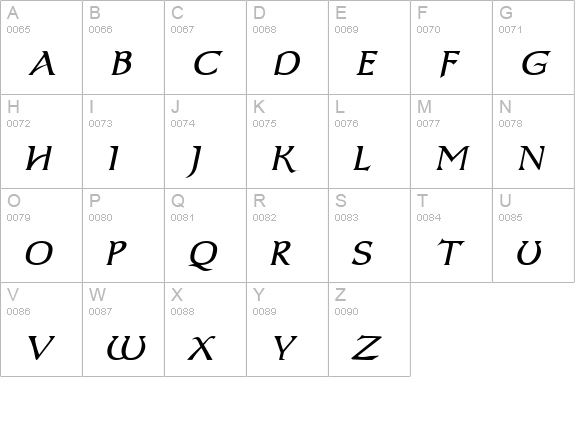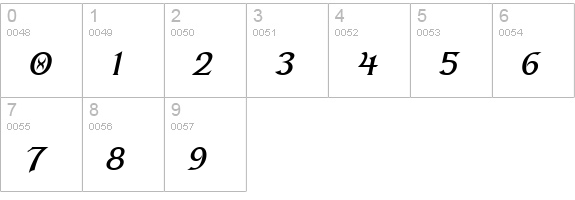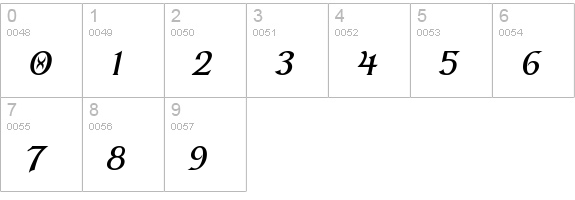
Dumbledor 2 Italic is a distinctive, italic variant in the Dumbledor typeface family \xE2\x80\x94 well suited to design and typography projects.
Dumbledor 2 Italic font is a sleek and modern typeface with a touch of elegance. Its italic style adds a dynamic flair to any design project, making it perfect for titles, headlines, and other display purposes. This font exudes a sense of sophistication and creativity, making it a versatile choice for both digital and print applications. What sets Dumbledor 2 Italic font apart is its ability to effortlessly blend in with various design styles, from minimalist to bold and everything in between. Its clean lines and subtle curves give it a timeless appeal that can elevate any project. The best part? Dumbledor 2 Italic font is completely free to download at FontsMarket.com, allowing you to add this stylish typeface to your font collection without breaking the bank. Don't miss out on this opportunity to enhance your designs with the elegant and versatile Dumbledor 2 Italic font today!